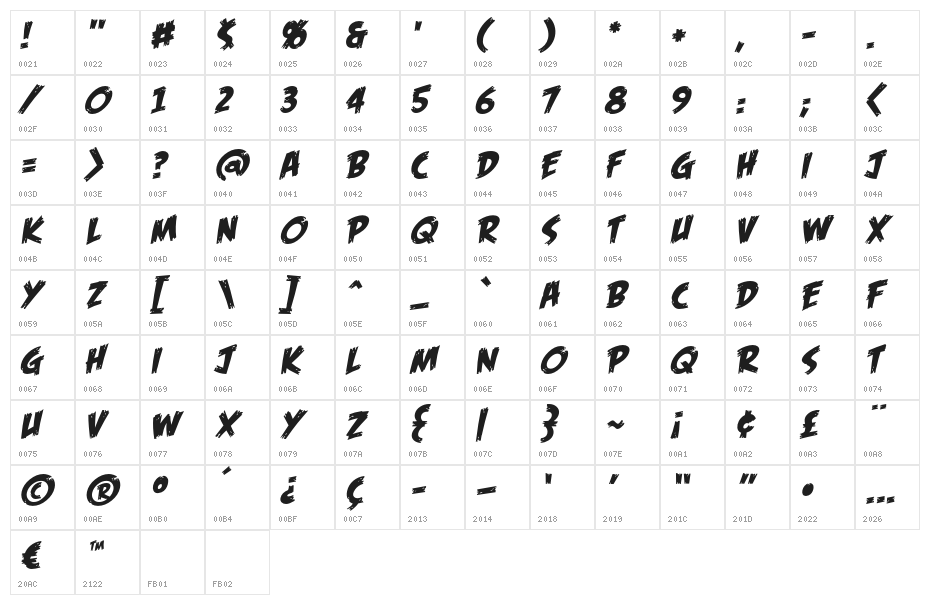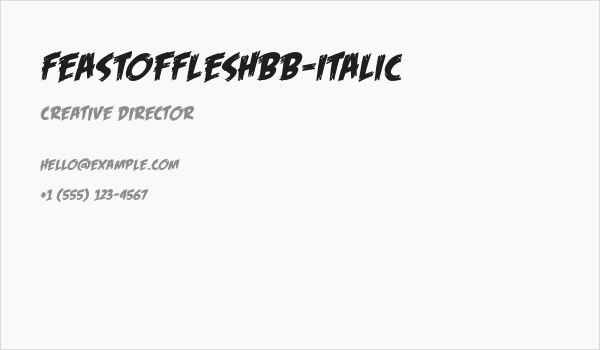
FeastofFleshBB-Italic Font
FeastofFleshBB-Italic Description
This font features a bold and dynamic design with a distressed, brushstroke appearance. The characters are heavily stylized, giving them a rugged and edgy look. The strokes are uneven, creating a sense of movement and energy. The uppercase and lowercase letters maintain a consistent style, with sharp angles and irregular edges. The numbers and special characters follow the same aesthetic, ensuring a cohesive appearance across all glyphs. This font is ideal for projects that require a dramatic and impactful visual presence.
| Proposed Projects | Ideal for horror-themed posters, edgy branding, album covers, and video game graphics. |